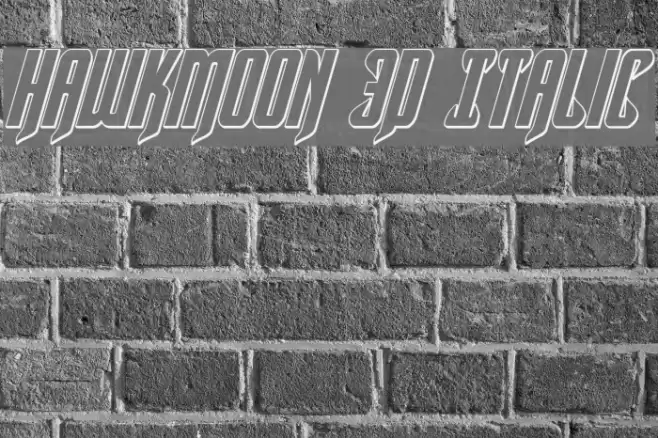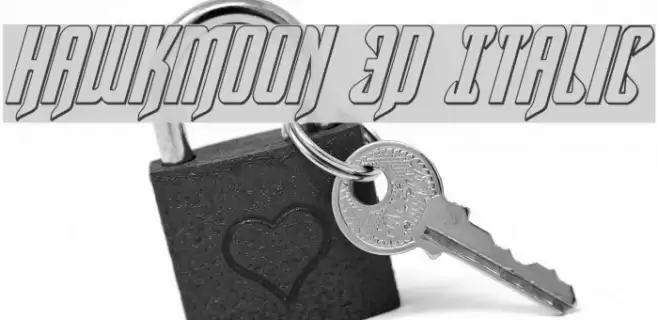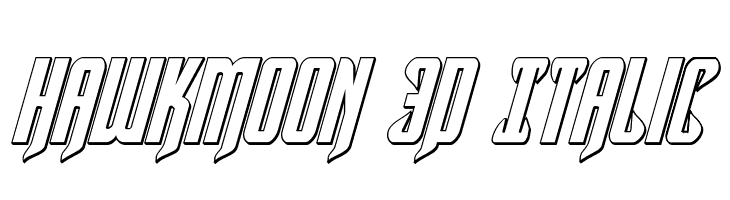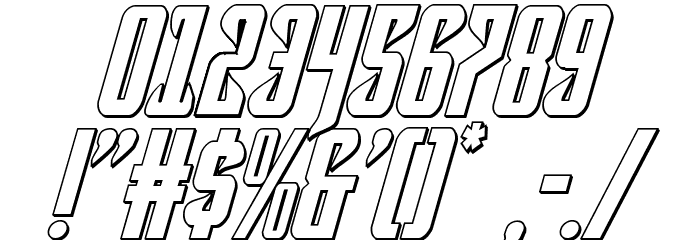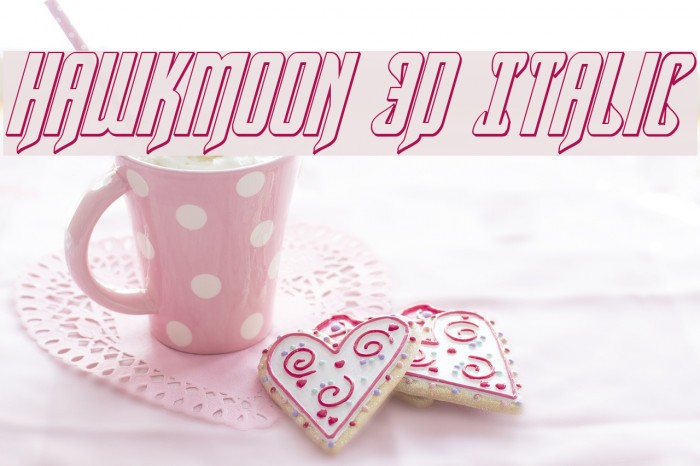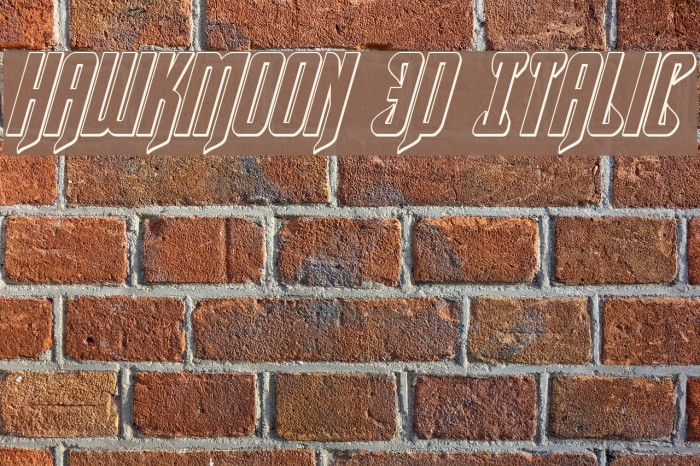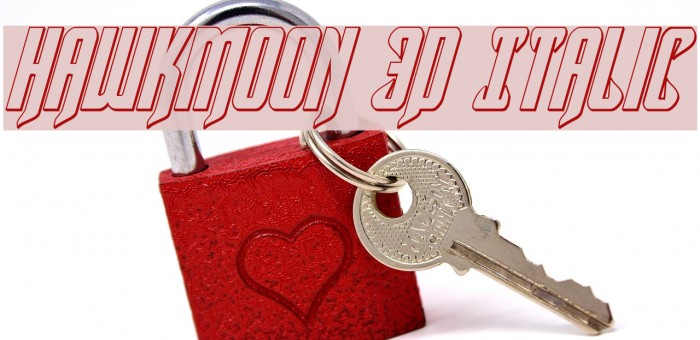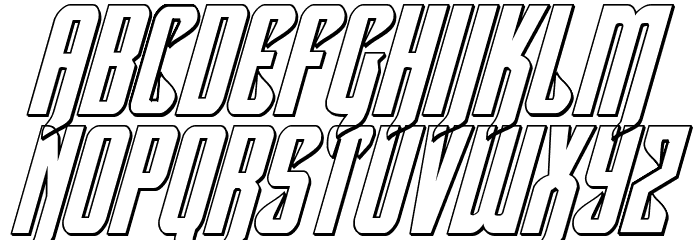
Hawkmoon 3D Italic Font
Hawkmoon 3D Italic Description
This font features a bold, dynamic 3D effect with italicized characters, giving it a sense of movement and depth. The letters are outlined, creating a striking visual impact that is both modern and eye-catching. The angular design of the characters adds a futuristic touch, making it suitable for projects that require a strong, attention-grabbing typeface. The uppercase and lowercase letters maintain a consistent style, with sharp edges and a slight slant, enhancing the italicized appearance. The numerals and special characters follow the same design principles, ensuring uniformity across all elements.
A bold, italicized 3D font with a modern, angular design from Uncategorized fonts.
- Proposed Projects: Ideal for posters, video game titles, branding, and any project needing a bold, futuristic look.